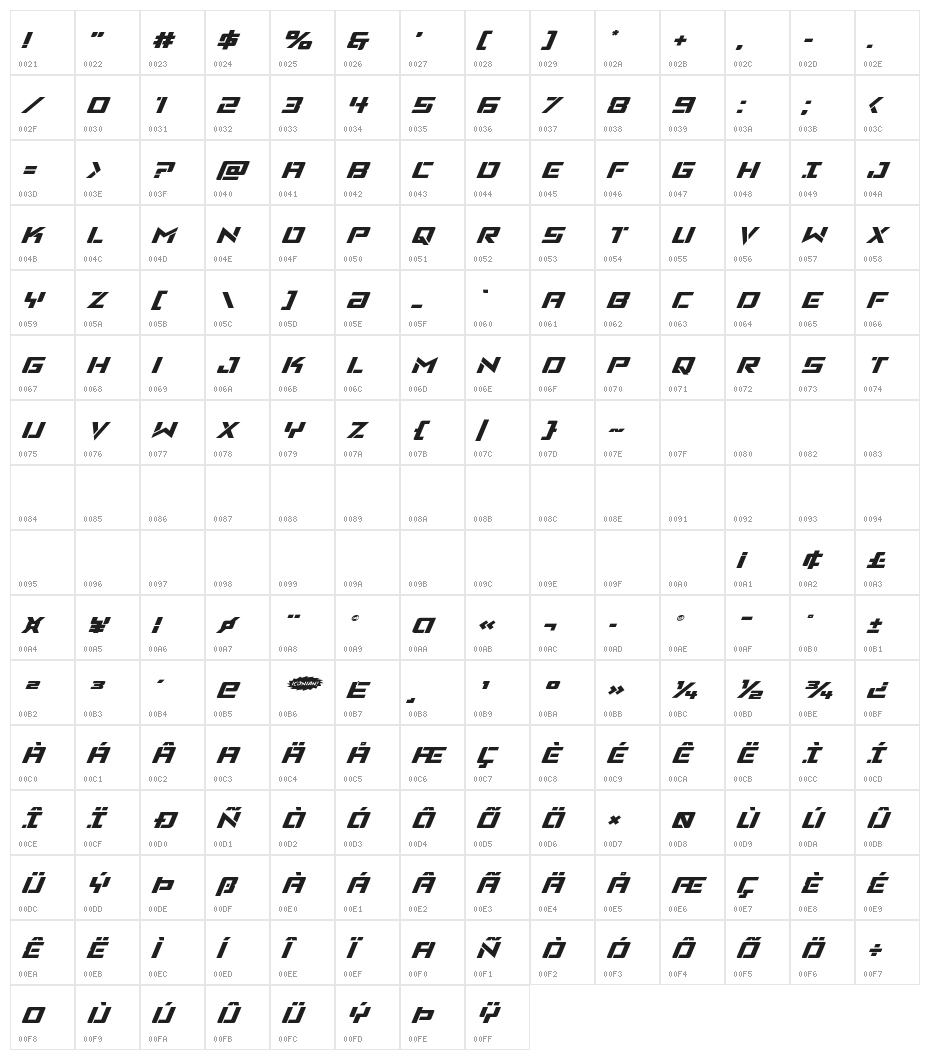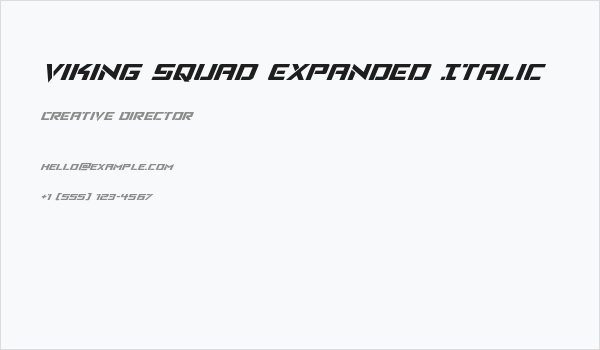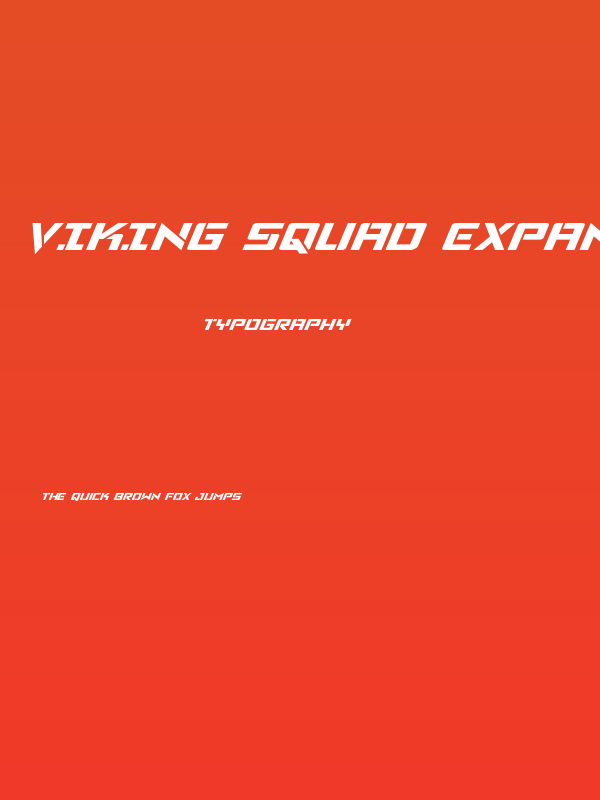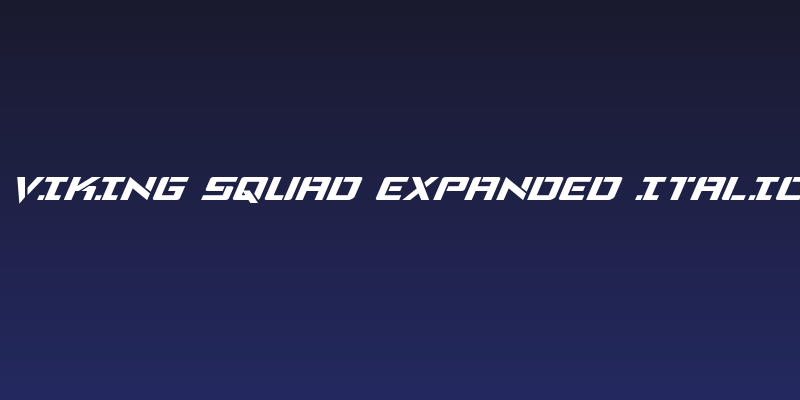
Viking Squad Expanded Italic Font
Viking Squad Expanded Italic Description
This font features a bold and dynamic design with sharp, angular lines and a futuristic aesthetic. The characters are expanded and italicized, giving them a sense of motion and energy. The uppercase and lowercase letters maintain a consistent style, with a strong emphasis on geometric shapes. The numbers and special characters follow the same design principles, ensuring uniformity across all glyphs. This font is ideal for projects that require a modern and edgy look, such as technology branding, sports team logos, or video game titles.
| Proposed Projects | Ideal for technology branding, sports team logos, video game titles, and dynamic posters. |